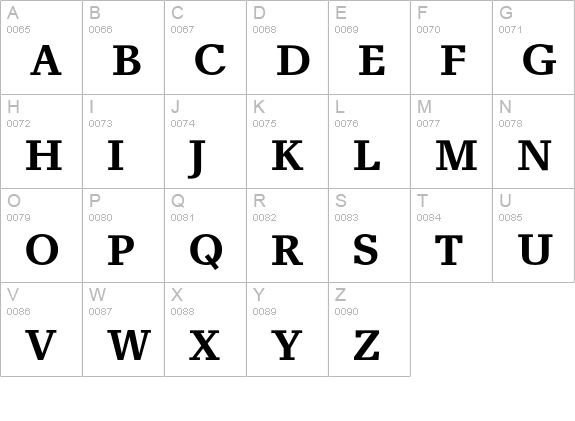
AlyssaOpti-Bold Font Details
AlyssaOpti-Bold is a strong, high-contrast variant in the AlyssaOpti typeface family \xE2\x80\x94 well suited to headlines, attention-grabbing titles, and strong calls-to-action.
AlyssaOpti-Bold is a striking and modern font that exudes confidence and sophistication. With its bold and prominent lettering, this typeface is perfect for making a statement in any design project. The strong, clean lines of AlyssaOpti-Bold give it a sleek and professional look that is sure to capture attention. What makes AlyssaOpti-Bold even more appealing is that it is available for free download at FontsMarket.com. This means that you can easily access this stylish font and use it in your own creations without any cost. Whether you are designing a poster, logo, or website, AlyssaOpti-Bold is a versatile font that will add a touch of elegance and flair to your work. Don't miss out on the opportunity to enhance your designs with the bold and modern aesthetic of AlyssaOpti-Bold. Download this font for free today and take your projects to the next level!